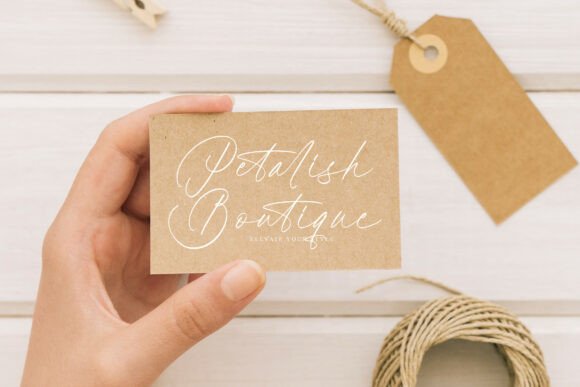
Introducing Balltesa Royales Font: A Timeless yet Trendy Script Font
In the world of typography, few fonts manage to strike a balance between classic elegance and modern flair. Balltesa Royales Font is one such exceptional script font that seamlessly blends traditional calligraphy with contemporary style, making it an ideal choice for upscale packaging, personal branding, and editorial design.
The Essence of Balltesa Royales Font
Balltesa Royales Font is a meticulously crafted script font that exudes sophistication and refinement. Its design draws inspiration from classic calligraphy, yet it incorporates modern elements that give it a fresh and trendy feel. This unique blend makes it versatile enough to be used in various design applications, from luxury branding to high-end editorial projects.
Key Features of Balltesa Royales Font
- Classic Calligraphy Meets Modern Flair: Balltesa Royales Font combines the elegance of traditional calligraphy with a modern twist, making it suitable for a wide range of design projects.
- Regular and Italic Styles: The font comes in both regular and italic styles, providing designers with flexibility and options for varied typographic expressions.
- Timeless yet Trendy: The font’s design is both timeless and trendy, ensuring that it will remain relevant for years to come while also meeting the demands of contemporary design.
- Ideal for Upscale Projects: Balltesa Royales Font is perfect for upscale packaging, personal branding, editorial design, and any project that requires a touch of elegance and sophistication.
Applications of Balltesa Royales Font
Balltesa Royales Font’s versatility and elegant design make it suitable for a variety of applications. Here are some of the ideal uses for this exceptional script font:
- Upscale Packaging: Add a touch of luxury to your product packaging with Balltesa Royales Font. Its elegant and refined appearance makes it perfect for high-end brands looking to make a statement.
- Personal Branding: Establish a sophisticated and professional image with Balltesa Royales Font. It’s ideal for personal branding, especially for individuals in creative, luxury, or editorial fields.
- Editorial Design: Elevate your editorial projects with the classic yet modern charm of Balltesa Royales Font. It’s suitable for magazines, newspapers, and any publication aiming for a high-end aesthetic.
Why Choose Balltesa Royales Font?
With numerous script fonts available, what sets Balltesa Royales apart? Here are a few reasons why designers and brands choose Balltesa Royales Font:
- Unique Blend of Styles: Balltesa Royales Font offers a unique combination of classic calligraphy and modern elements, making it stand out in the world of typography.
- Versatility: The availability of both regular and italic styles, along with its adaptable nature, makes it a versatile choice for various design needs.
- Elegance and Sophistication: The font’s inherent elegance and sophistication make it an excellent choice for projects that demand a high level of refinement.
Tips for Using Balltesa Royales Font Effectively
To maximize the impact of Balltesa Royales Font in your designs, consider the following tips:
- Pair with Complementary Fonts: When using Balltesa Royales Font alongside other typefaces, choose fonts that complement its elegant and modern style. Sans-serif fonts or serif fonts with a minimalist design work well.
- Adjust Letter Spacing: For optimal readability, especially in longer texts, adjust the letter spacing. This ensures that the text remains clear and visually appealing.
- Utilize the Italic Style: The italic style of Balltesa Royales Font adds a dynamic element to your design. Use it to emphasize certain sections or to create visual hierarchy.
Balltesa Royales Font is a remarkable script font that brings together the best of classic calligraphy and modern design. Its timeless elegance, coupled with a trendy flair, makes it an exceptional choice for designers and brands looking to elevate their projects. Whether it’s for upscale packaging, personal branding, or editorial design, Balltesa Royales Font is sure to make a lasting impression.